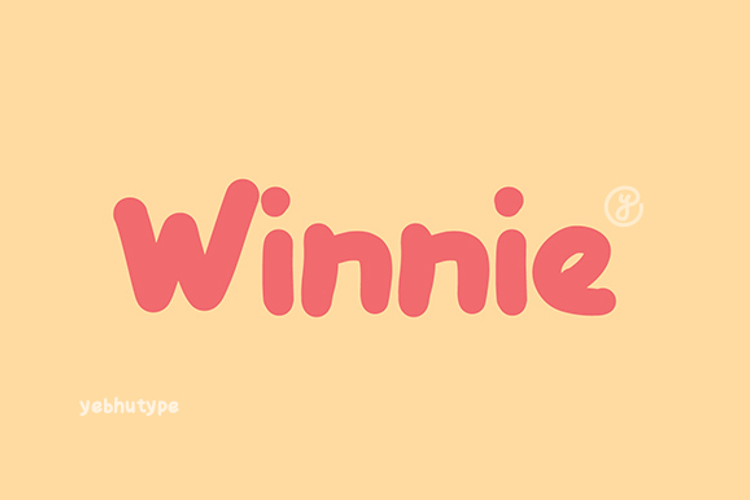
Winnie Font
Introducing Winnie Font , a heartwarming typeface inspired by the playful innocence of childhood and the timeless allure of storybook magic. Designed for those who cherish nostalgia, imagination, and a touch of whimsy, Winnie Font is more than just letters on a page—it’s an invitation to relive cherished memories, spark joy, and create designs that feel like a warm hug. With its round, soft curves, slightly plump shapes, and friendly demeanor, this font brings comfort and charm to every project it graces.
The Essence of Winnie Font
Winnie Font captures the essence of coziness and connection. Its gentle, handcrafted aesthetic feels like flipping through the pages of a beloved storybook or rediscovering the simple joys of youth. Whether you’re designing for kids, crafting heartfelt invitations, or adding warmth to branding projects, Winnie Font radiates a sense of kindness and approachability that resonates with audiences of all ages. It’s perfect for moments when you want your message to feel inviting, genuine, and full of heart.
Key Features
Playful & Rounded Style:
Winnie Font embodies a chubby, cheerful look with smooth, rounded edges that mimic the lovable imperfections of a child’s doodles. Each character exudes friendliness and fun, making it ideal for casual yet impactful designs.
Soft & Plump Details:
The font’s slightly exaggerated proportions give it a cuddly, huggable quality. Letters like o , b , and p are delightfully plump, while subtle quirks in strokes add personality without overwhelming readability.
Warm & Comforting Aesthetic:
Despite its playful nature, Winnie Font maintains a balanced structure, ensuring legibility across various uses. Its tight kerning and consistent spacing keep the design cozy but polished.
Versatile Color Palette:
Imagine pastel yellows paired with soft blues or rich honey tones against creamy whites—Winnie Font thrives in any color scheme that reflects warmth and creativity. Customize it to suit your mood, but trust us, it shines brightest in earthy, nostalgic hues.
Broad Range of Use Cases:
From children’s products to personal projects, Winnie Font adapts effortlessly to diverse creative needs. Its versatility makes it a go-to choice for designers seeking to infuse their work with warmth and personality.
Mood & Personality
Winnie Font embodies the spirit of adventure, friendship, and endless imagination. Picture lazy afternoons spent exploring enchanted forests, sharing laughter over jars of honey, or curling up with a favorite book—that’s the vibe Winnie Font brings to your designs. It’s lighthearted without being overly childish, charming without losing clarity, and imaginative without sacrificing professionalism.
Ideal Use Cases
Children’s Books & Storytelling:
Bring tales to life with Winnie Font’s whimsical touch. Perfect for chapter titles, dialogues, or quirky captions, it creates an immersive reading experience for young dreamers and storytellers alike.
Creative Posters & Flyers:
Hosting a family event, art exhibition, or community gathering? Winnie Font adds a dash of warmth and grabs attention instantly.
Branding for Family-Friendly Products:
Toy brands, educational apps, or businesses targeting parents and children can use Winnie Font to connect with their audience in a meaningful (and memorable) way.
Casual Invitations & Greeting Cards:
Birthdays, baby showers, or holiday greetings—Winnie Font makes every occasion feel special and celebratory.
Illustrations & Social Media Graphics:
Add a playful twist to your digital content. Whether it’s Instagram posts, TikTok overlays, or Pinterest pins, Winnie Font keeps your audience engaged and smiling.
Why Choose Winnie Font?
In a world dominated by sleek sans-serifs and rigid serifs, Winnie Font stands apart as a breath of fresh air. It reminds us to embrace imperfection, celebrate simplicity, and find joy in the little things. Whether you’re designing for kids, families, or the young-at-heart, Winnie Font helps you create connections that feel authentic and heartwarming.
Let Your Imagination Run Wild
With Winnie Font, there’s no limit to what you can create. Let its soft curves and playful details inspire you to think outside the box and bring your wildest ideas to life. Whether you’re aiming for something cute, cozy, or downright magical, Winnie Font will help you deliver your message with style and charisma.
P.S.: Life’s too short for cold, impersonal fonts. Make every project sparkle with Winnie Font !